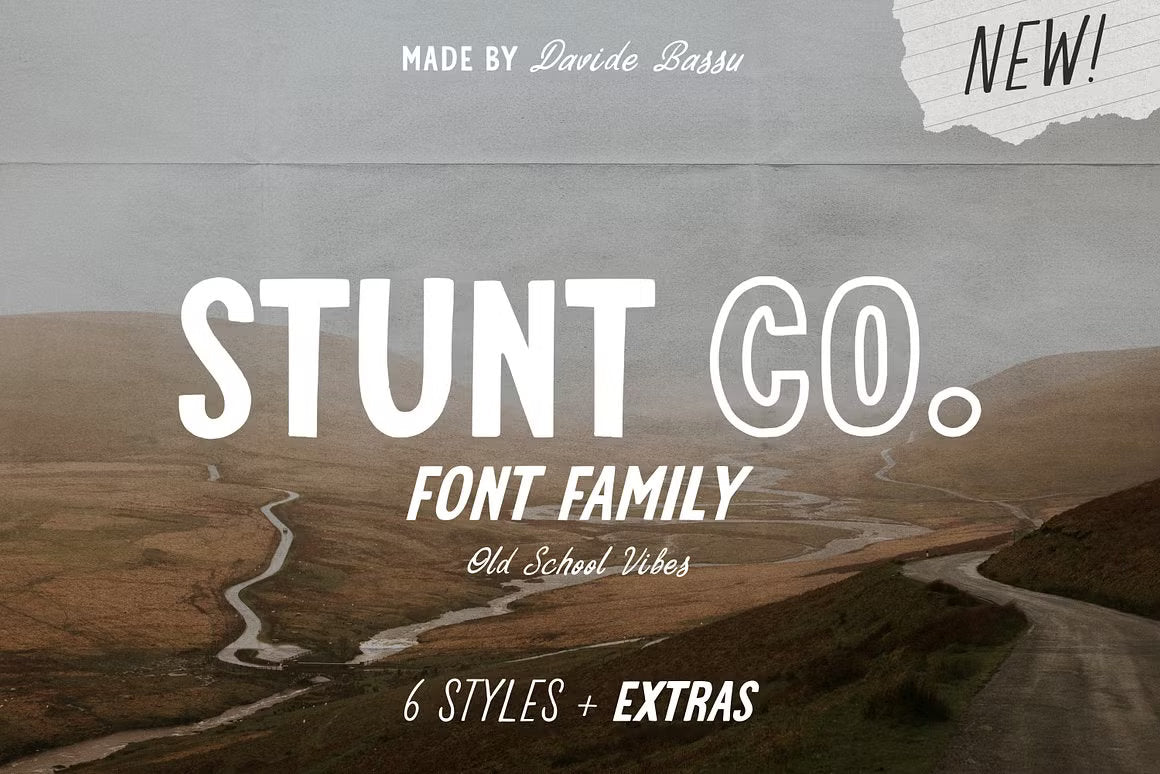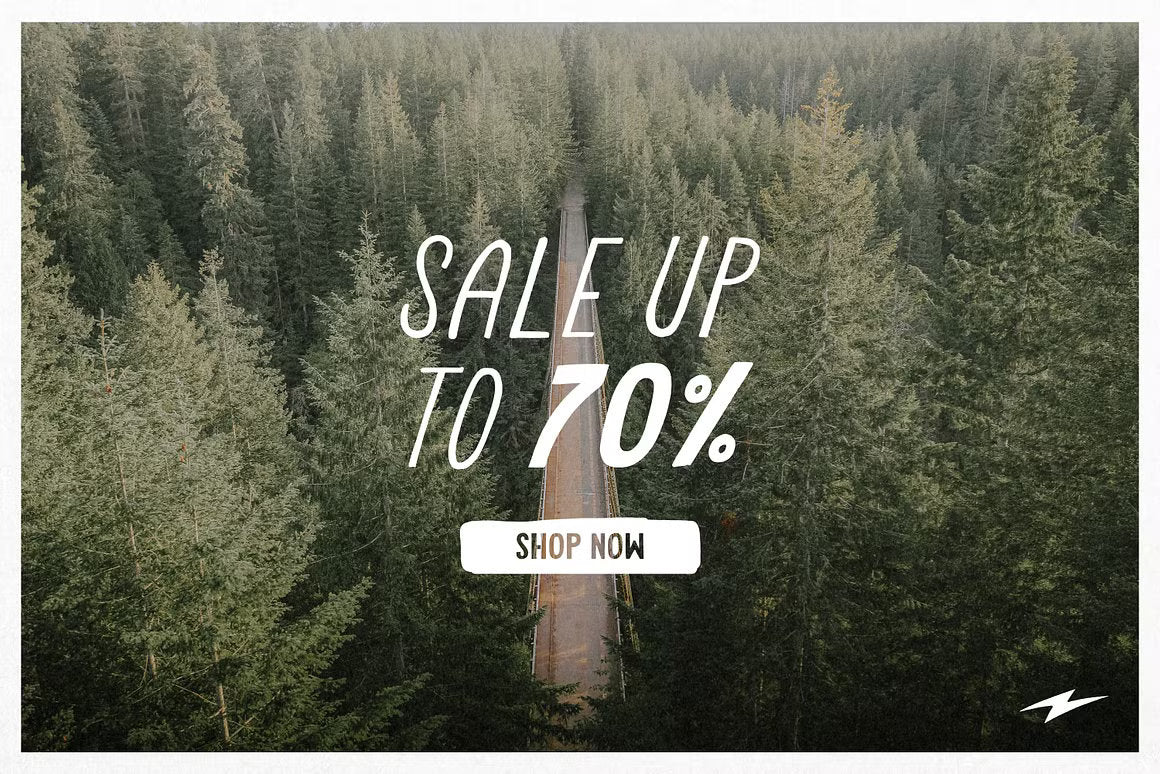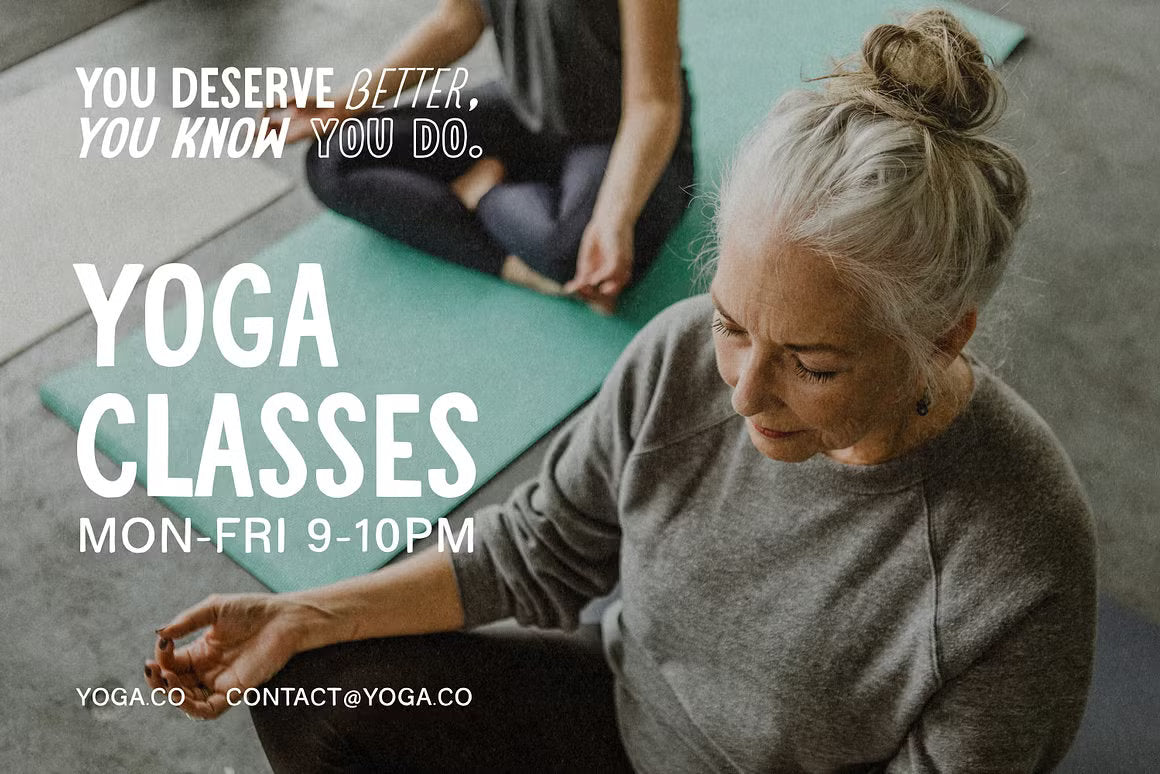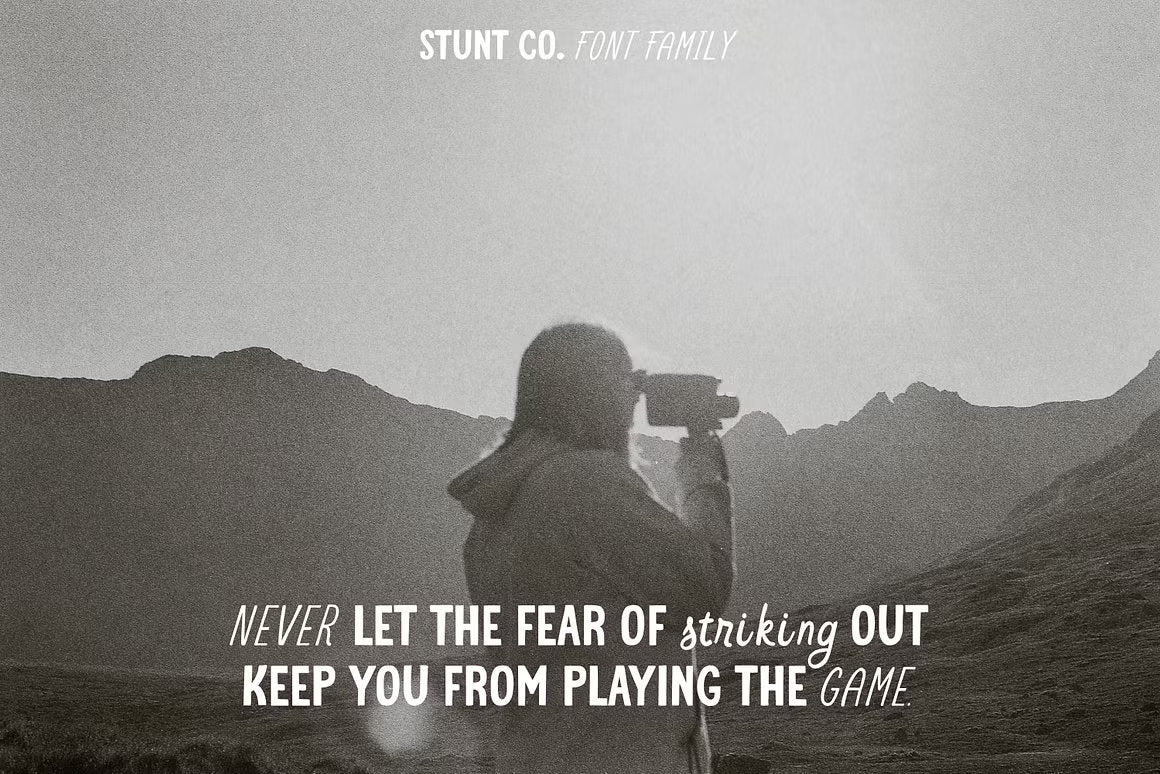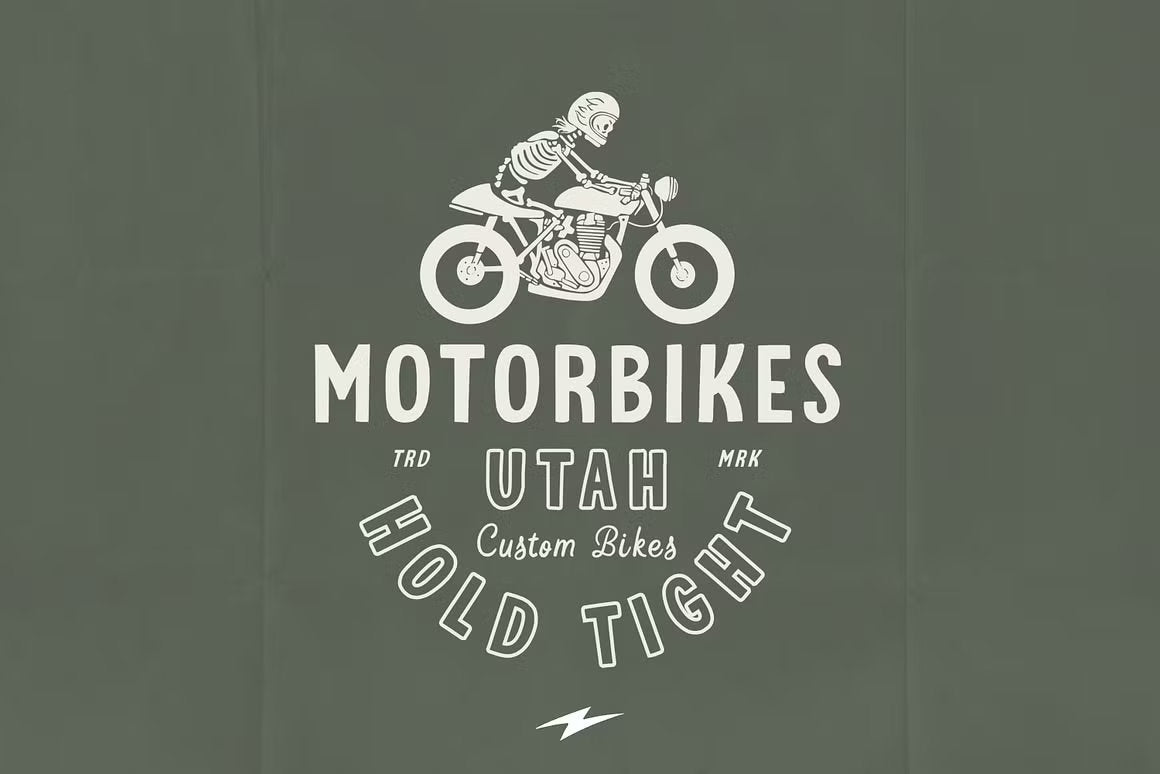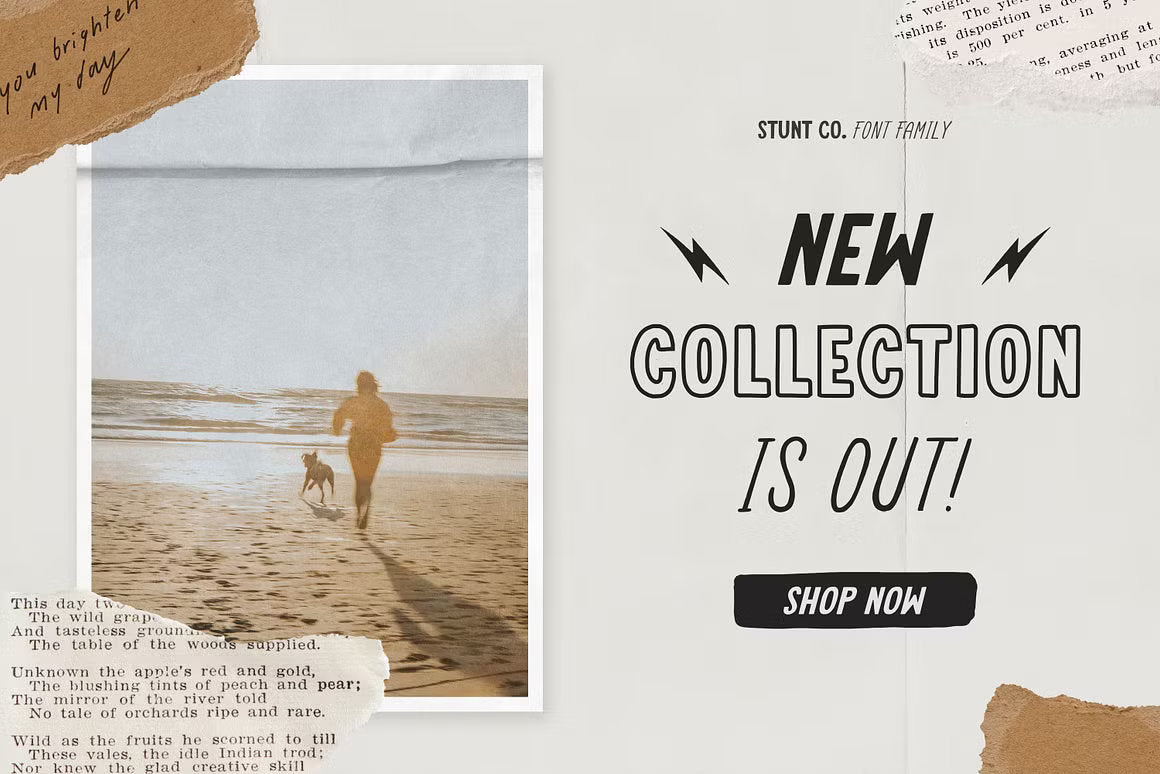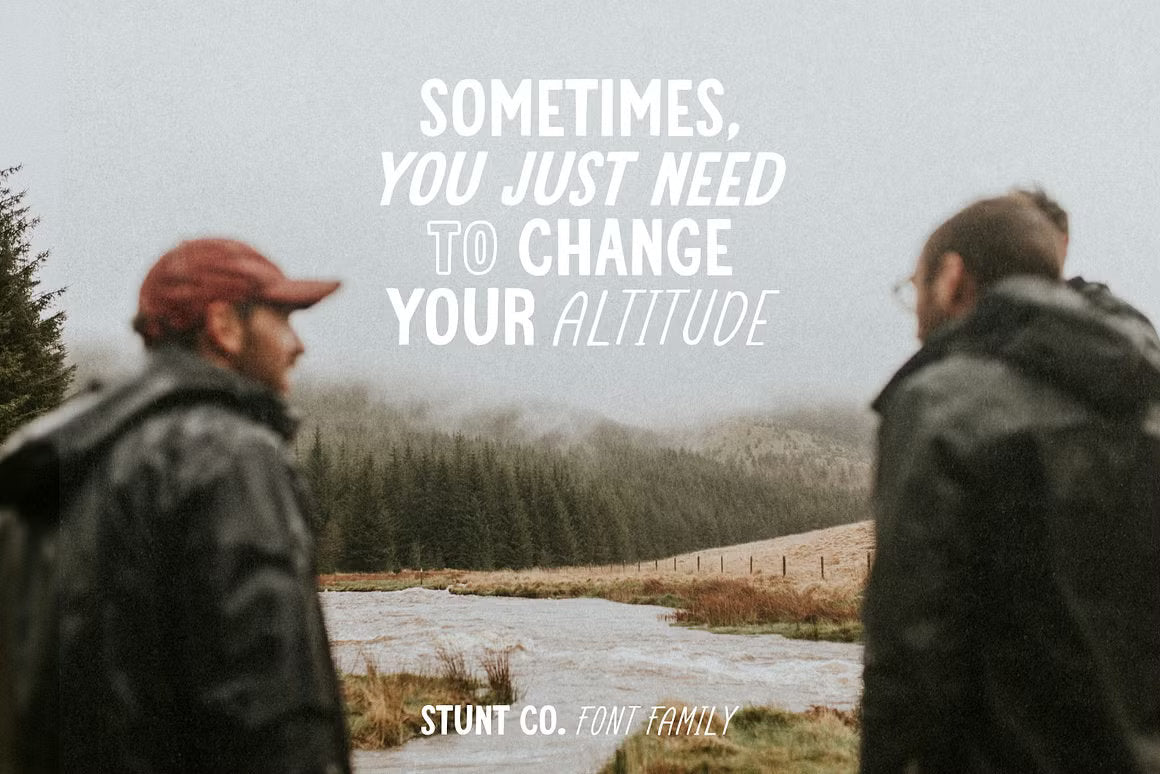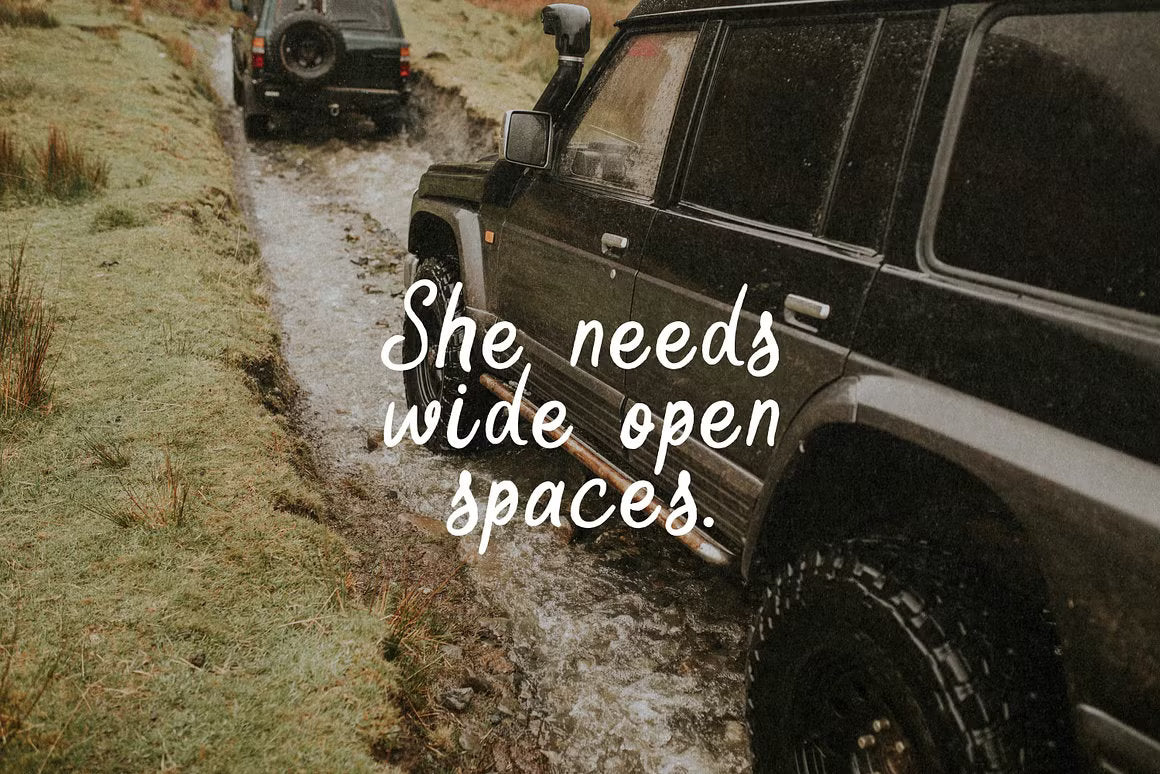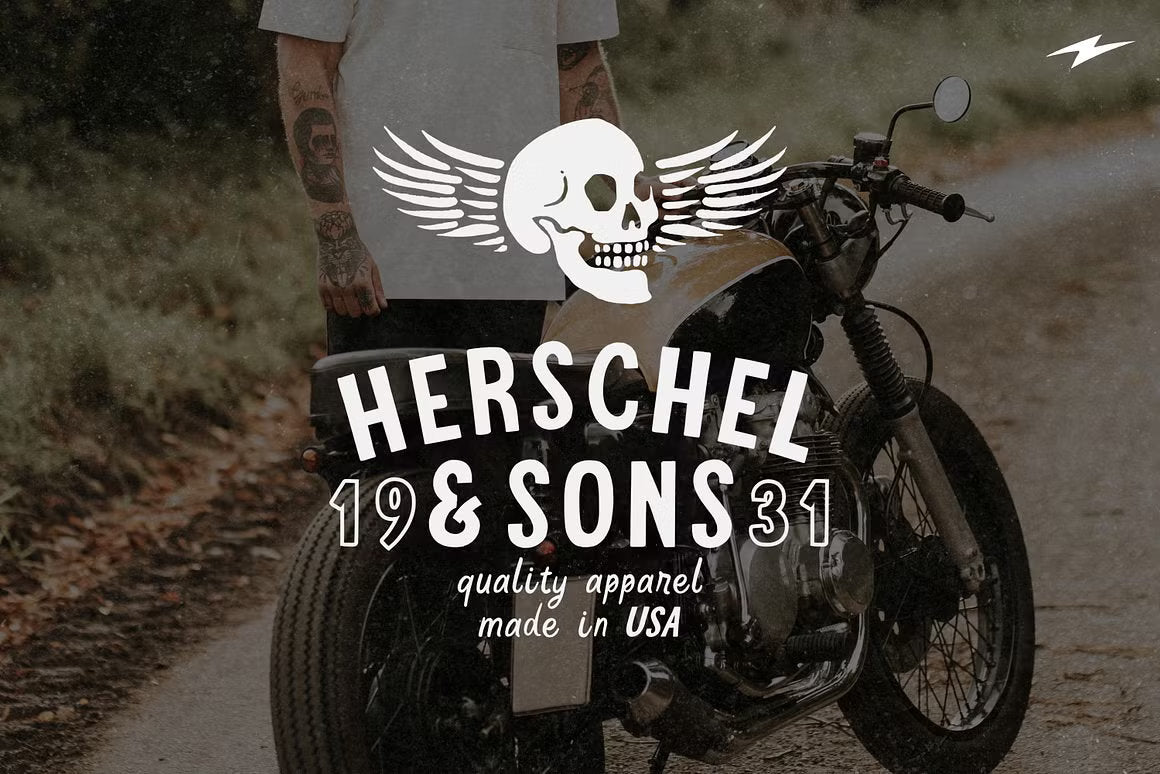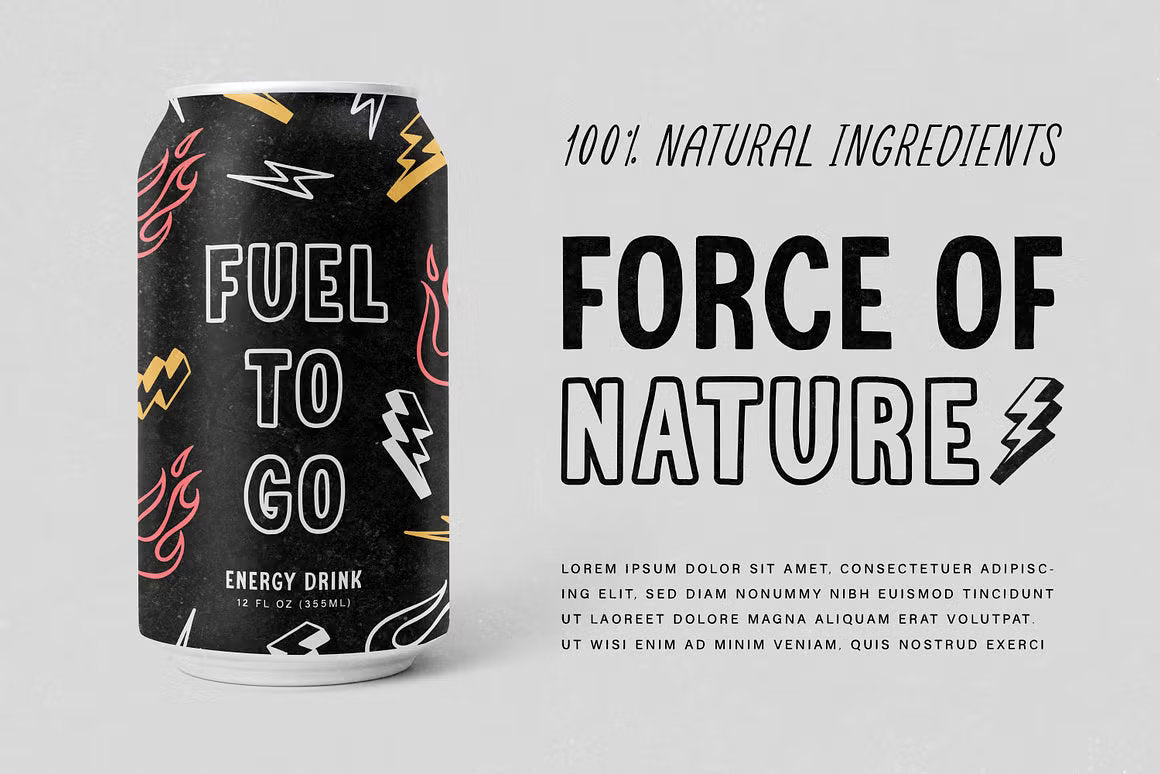
STUNT CO. Font Family + Extra
STUNT CO. is a bold, all-caps hand-drawn font family inspired by vintage sign painting, retro racing aesthetics, and rugged Americana design. Created to bring energy and character to your work, this versatile set of fonts is ideal for apparel, logos, packaging, and headline design.
The family includes six distinct styles—Regular, Outline, Shadow, Rough, Rough Outline, and Rough Shadow—allowing you to layer effects or use them independently for unique, eye-catching results. Each letterform was carefully crafted to preserve the raw, authentic feel of handmade lettering, while maintaining strong readability and impact.
Whether you're working on a streetwear brand, a rock band poster, or a retro-inspired label, STUNT CO. offers the perfect balance of grit, style, and versatility.
Key Features
All-caps display font
6 styles included
Hand-drawn with vintage character
Great for logos, packaging, posters, apparel, and more
Multilingual support
Easy to layer and combine for custom effects